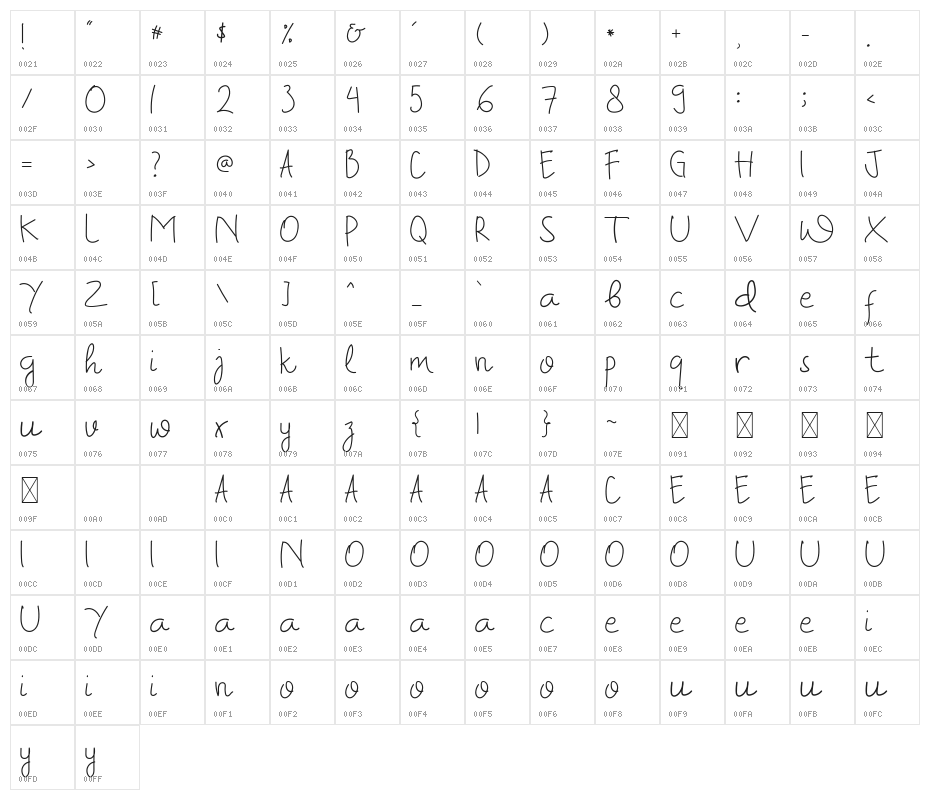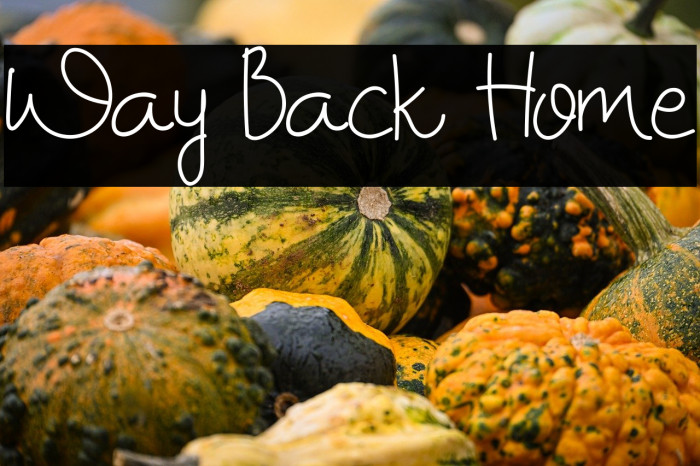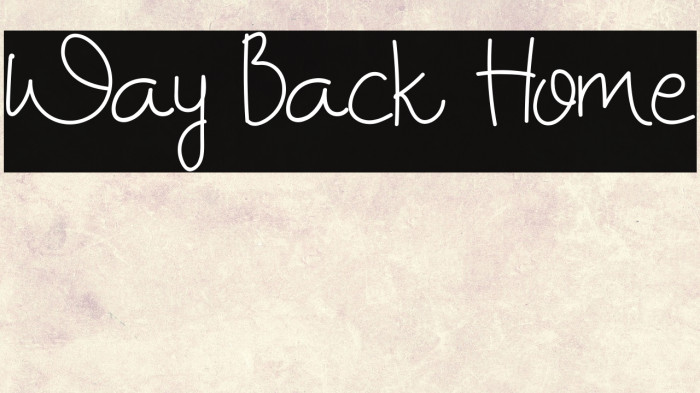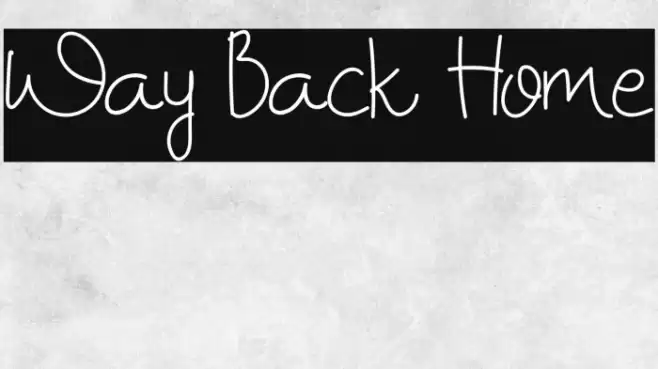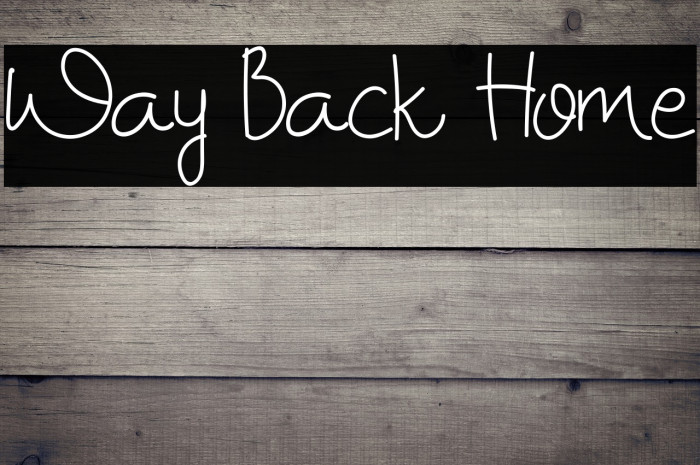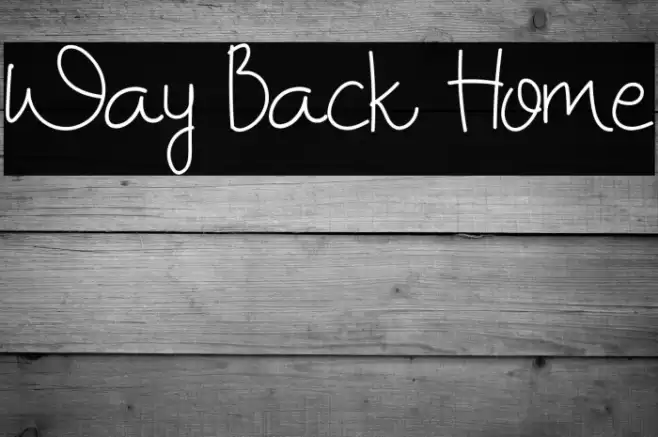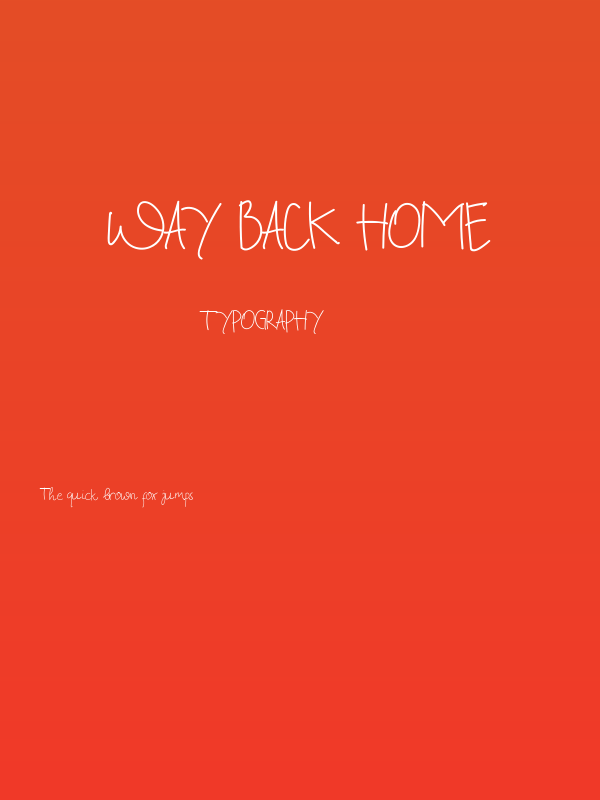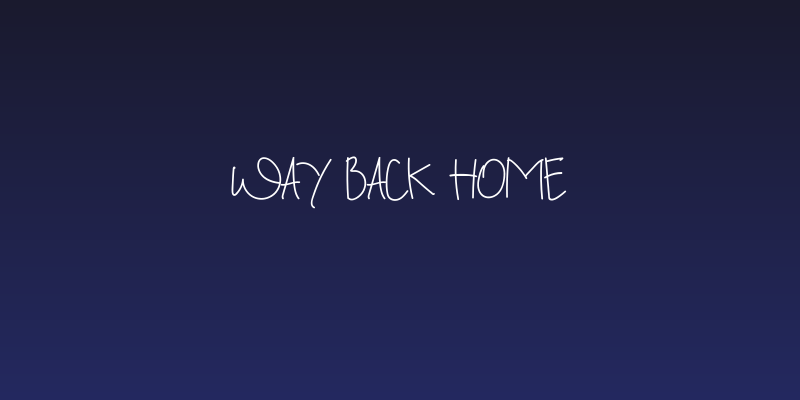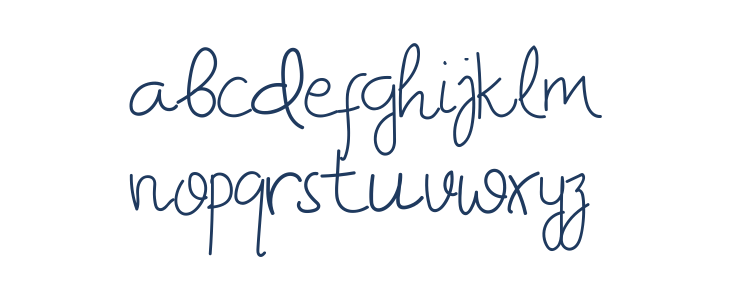
Way Back Home Font
Way Back Home Description
This font features a playful and casual handwritten style, characterized by its flowing, organic lines and slightly irregular shapes. The uppercase letters are tall and slender, while the lowercase letters maintain a consistent height, creating a harmonious balance. The numbers and special characters follow the same whimsical style, adding a touch of personality to any text. The strokes are smooth and continuous, giving the font a natural and approachable feel. This font is perfect for projects that require a personal touch, such as invitations, greeting cards, or creative branding materials.
| Proposed Projects | Ideal for invitations, greeting cards, creative branding, and personal projects. |